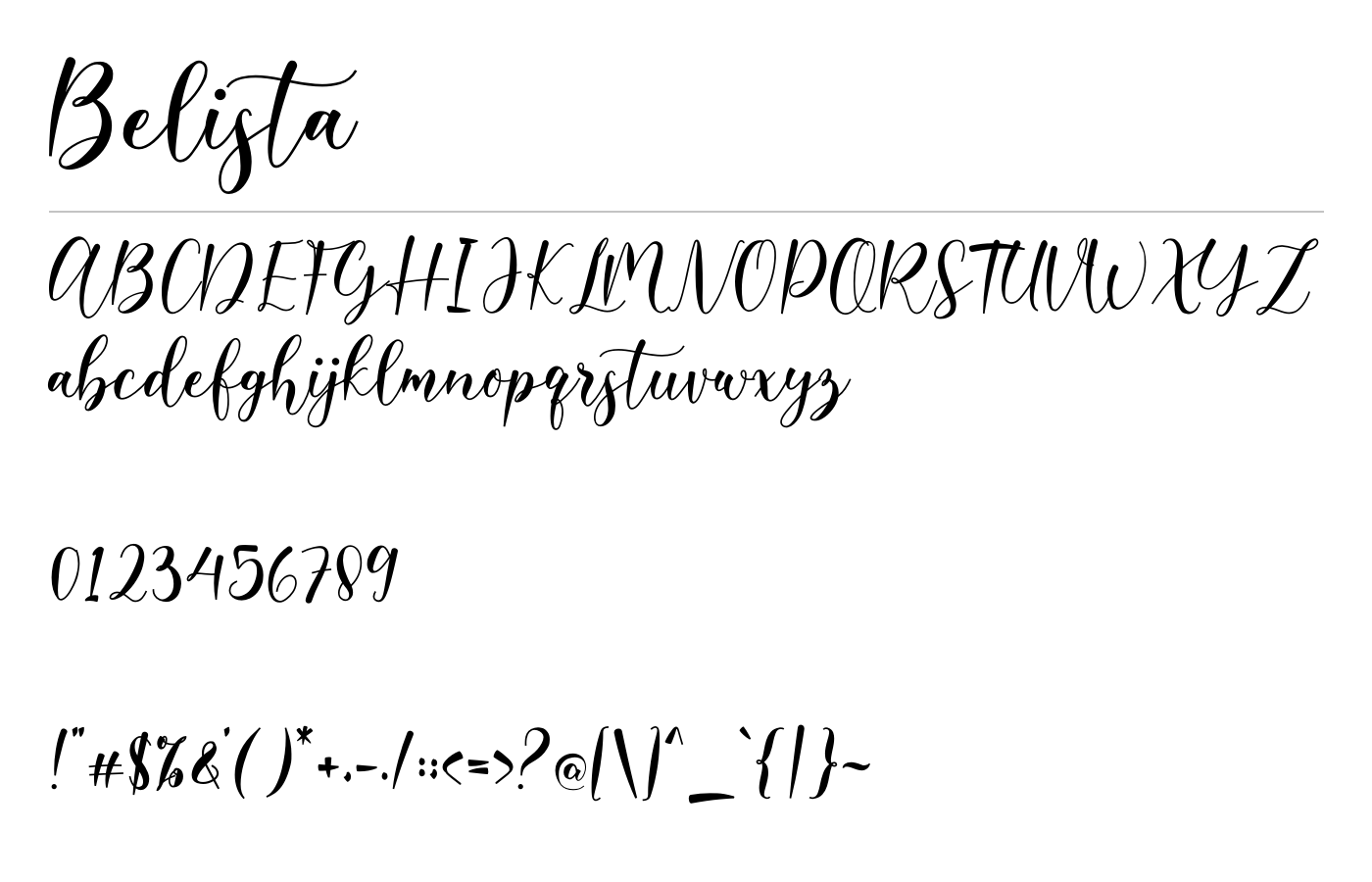
Belista is a stylish script font featuring elegant, flowing letterforms with a natural handwritten feel. Its smooth strokes and playful yet refined curves make it perfect for creative and decorative uses, such as branding, invitations, and feminine or romantic designs. With its balanced readability and charming personality, Belista works beautifully in headlines and logos where a touch of sophistication is desired.
Belista Font
About Belista Font
| Font family | Belista Font |